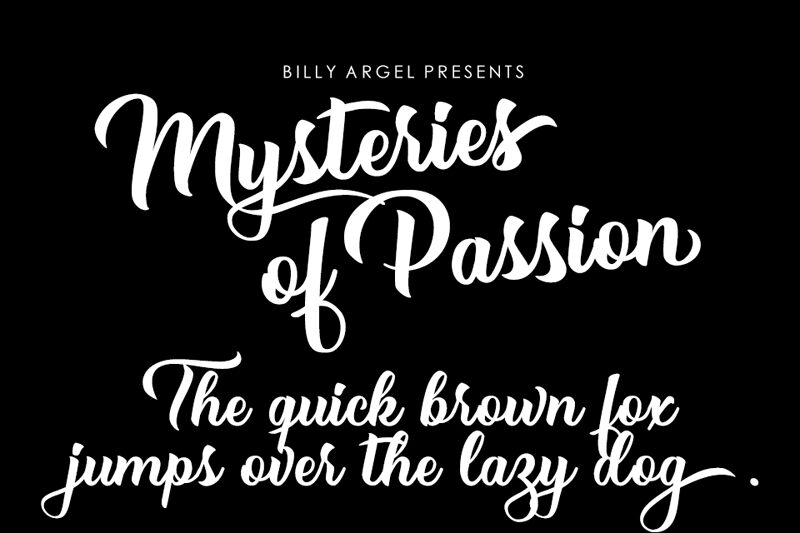
Mysteries of Passion, a captivating brush font designed by Billy Argel, exudes a harmonious blend of elegance and passion. Its flowing, calligraphic strokes effortlessly convey a sense of fluidity and grace, making it an ideal choice for a wide range of design applications.
The font's distinctive character is enhanced by its organic, hand-crafted appearance, which lends an air of authenticity and personality to any project. Whether adorning wedding invitations, branding materials, or editorial layouts, Mysteries of Passion adds a touch of refined sophistication that is sure to captivate.
Versatile and adaptable, this font shines in both print and digital mediums, seamlessly complementing a variety of design styles. From elegant script to bold, modern compositions, Mysteries of Passion by Billy Argel offers a unique and visually striking typographic solution for designers seeking to elevate their work with a touch of passion and mystery.